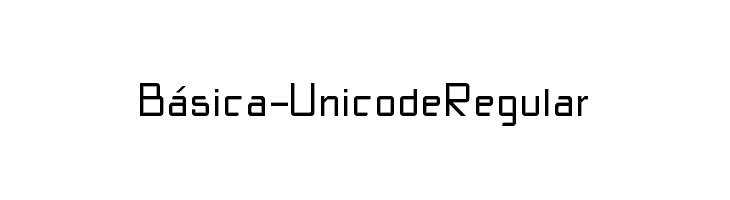
A modern, geometric font with rounded edges and uniform stroke width.
A modern, geometric sans-serif font with rounded edges and uniform stroke width.